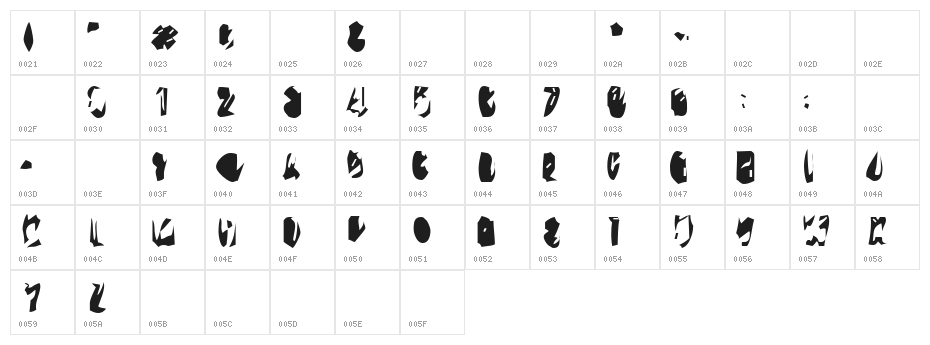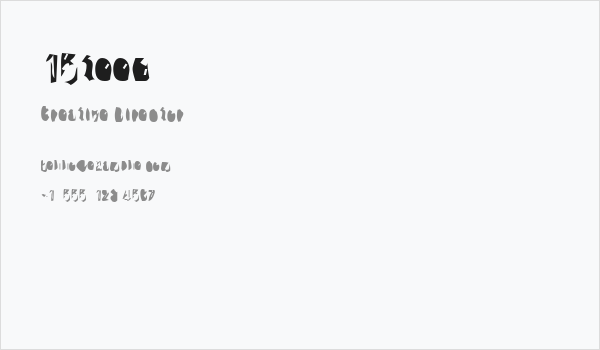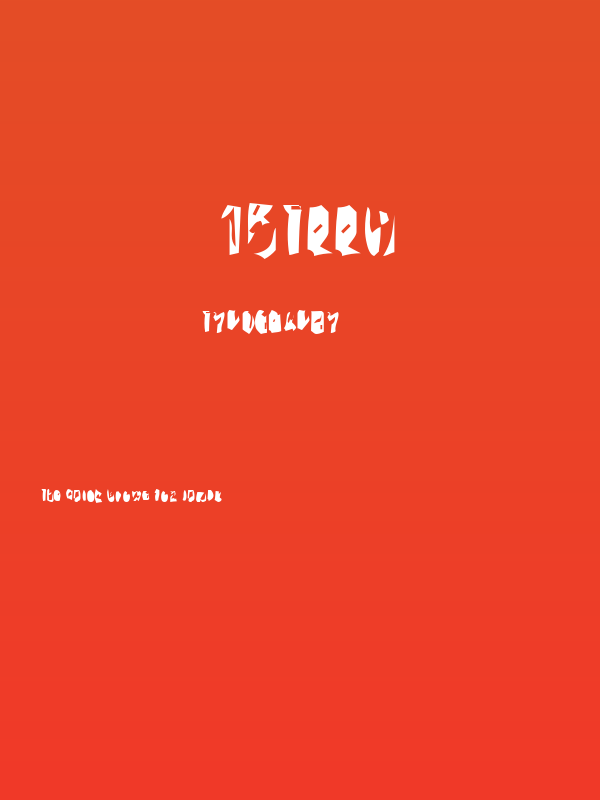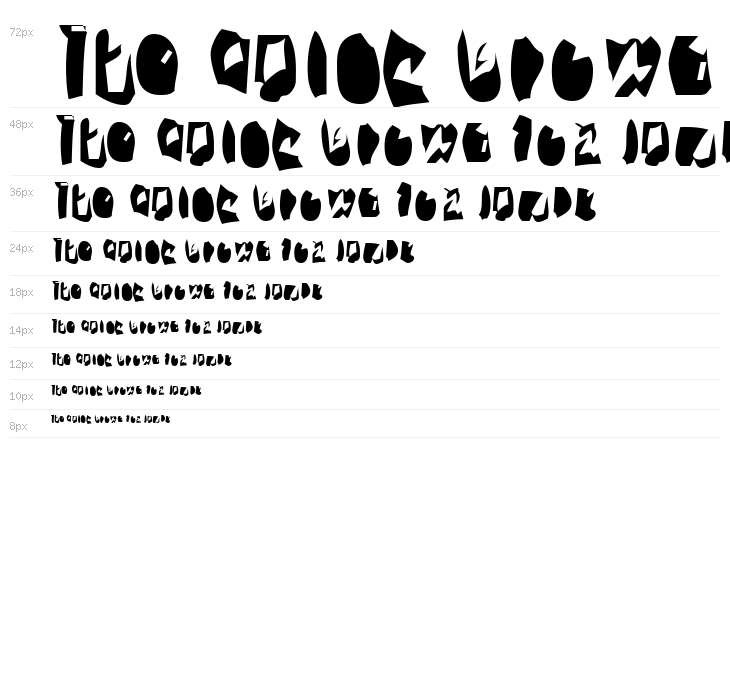
15teen Font
15teen Description
This font features a highly abstract and artistic design, characterized by its bold and irregular shapes. The letters are heavily stylized, with a unique blend of sharp angles and smooth curves, creating a dynamic and eye-catching appearance. The font's unconventional form makes it stand out, with each character appearing almost like a piece of modern art. The overall aesthetic is bold and expressive, making it suitable for creative and avant-garde projects. The characters are tightly spaced, enhancing the compact and impactful look of the text.
Proposed ProjectsIdeal for modern art projects, album covers, avant-garde posters, and creative branding.